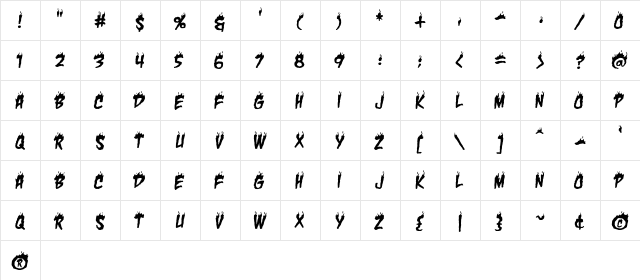
Char BB Regular
| Foundry | Nate Piekos |
| Designer | Nate Piekos |
Design Context for Char BB Typeface
Char BB is a composed and adaptable typeface that performs quietly and consistently across a wide range of design contexts.